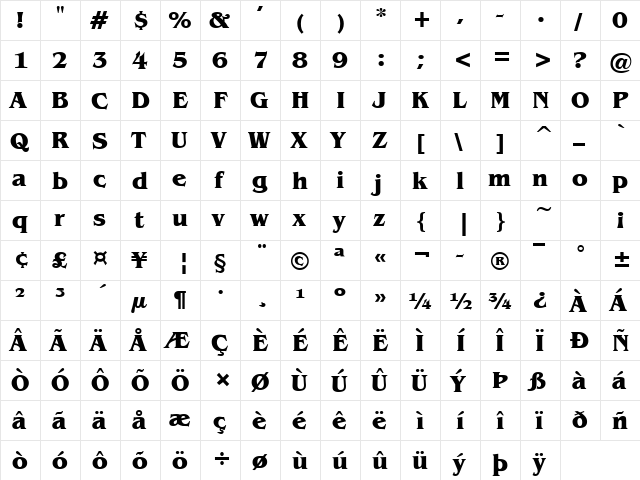
Gazette Bold
Design Context for Gazette Typeface
Gazette offers clean, dependable letterforms without strong stylistic allegiance, making it a practical choice for designers who need flexibility. Its bold stroke weight gives it real presence on the page.